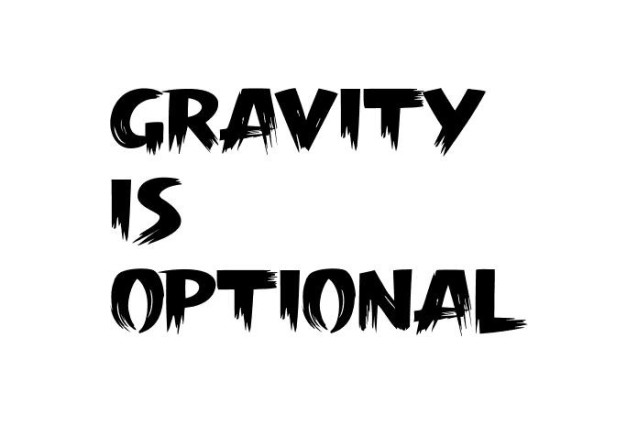
Gravity Is Optional Font
Gravity Is Optional Font inspired by brush lettering-style typography. This font is perfect for a design that makes it more attractive and playful. It was made with a very good level of aesthetics, making this font suitable for a book cover, poster, packaging, merchandise, logotype, and much more.